Barbie Font (latest)
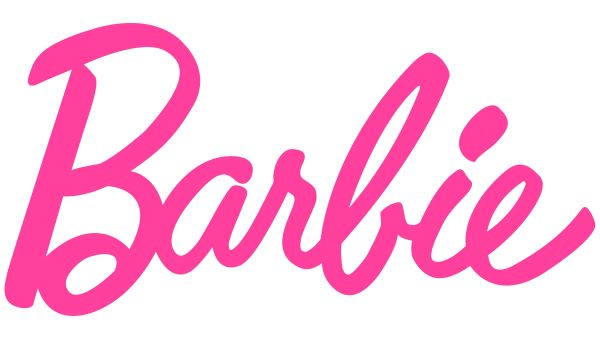
Barbie Font (old)
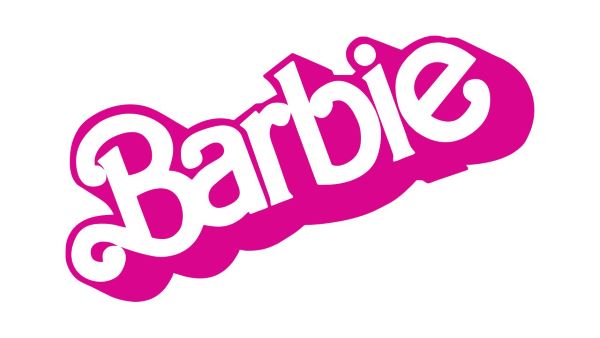
What Font is Barbie?
The Barbie Font is represented today by the Barbie Font (replica), created to closely mimic the newest official Barbie logo typography. It captures the playful, bubbly, and distinctly feminine script style associated with the brand’s refreshed identity. For the classic Barbie branding, the Bartex (replica) font mirrors the iconic retro look used in earlier logos. Both are free replica options, allowing designers to recreate the recognizable Barbie aesthetic with ease.
About Barbie
With its vibrant visuals, sharp humor, and heartfelt messages, the Barbie franchise continues to reinvent itself for new generations—its typography evolving right alongside its cultural impact.